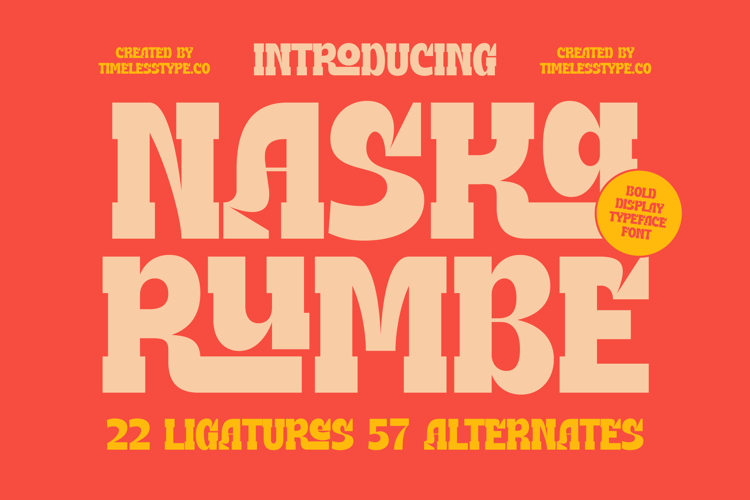
Naska Rumbe - Bold Display Font
Unleash a statement-making presence with Font Naska Rumbe - Bold Display Font Slab Serif, a typeface designed to command attention. This bold display font masterfully blends robust slab serif foundations with a dynamic, almost playful rhythm, creating an aesthetic that is both powerful and profoundly engaging. Perfect for projects demanding immediate visual impact, its distinctive character shapes ensure your message is not just seen, but remembered with a modern, high-contrast feel.
Beyond its striking initial impression, Font Naska Rumbe - Bold Display Font Slab Serif offers unparalleled creative flexibility. With an impressive suite of 22 ligatures and 57 alternates, designers can craft truly unique headlines and logotypes, infusing every word with bespoke charm and originality. These extensive stylistic options ensure remarkable versatility, allowing for diverse applications while maintaining a cohesive, professional appeal in graphic design.
Expand your creative horizons globally with absolute confidence. With its extensive multilingual support, Font Naska Rumbe - Bold Display Font Slab Serif adapts seamlessly across global markets, making it incredibly versatile for international projects. This global adaptability ensures your brand's voice resonates universally, delivering consistent impact and professionalism regardless of language barriers.
Elevate your designs with unmatched impact and sophisticated flair. Font Naska Rumbe - Bold Display Font Slab Serif is perfectly suited for luxury branding, eye-catching packaging design, compelling editorial layouts, impactful poster art, and any application where bold headlines and a memorable identity are crucial. Choose this typeface to instantly inject a distinctive and authoritative presence into your most important visual communications.